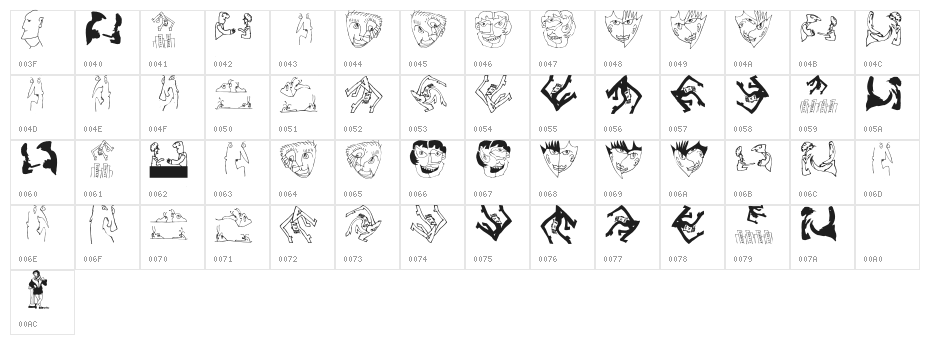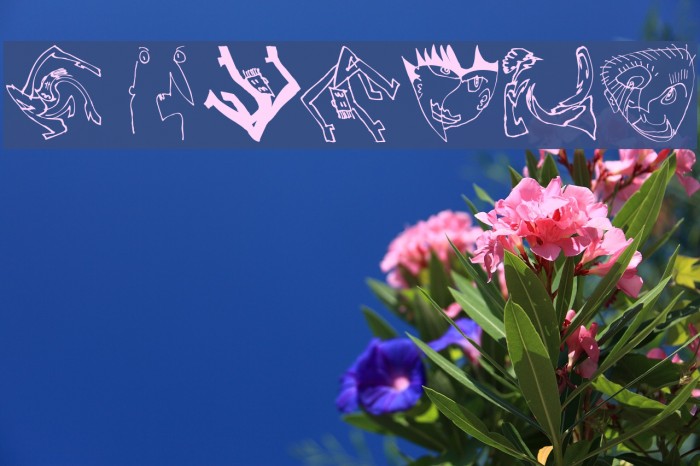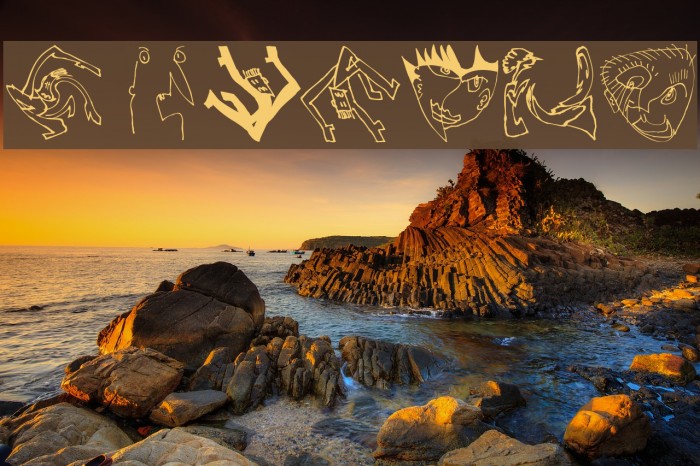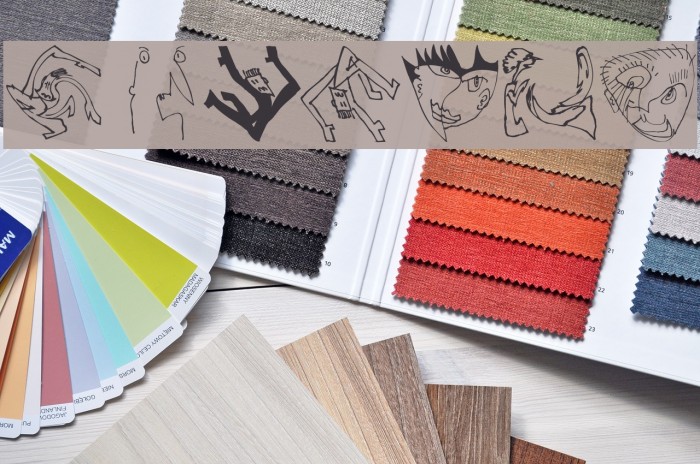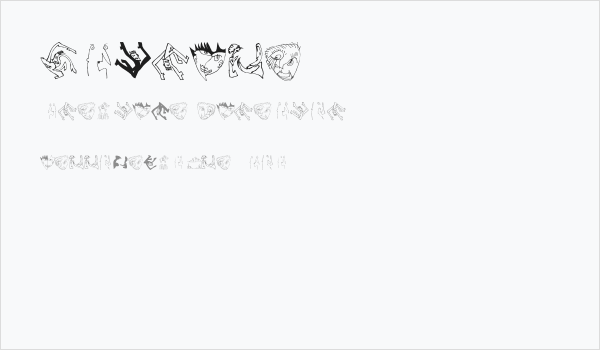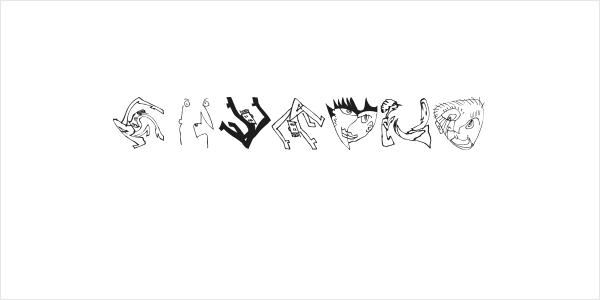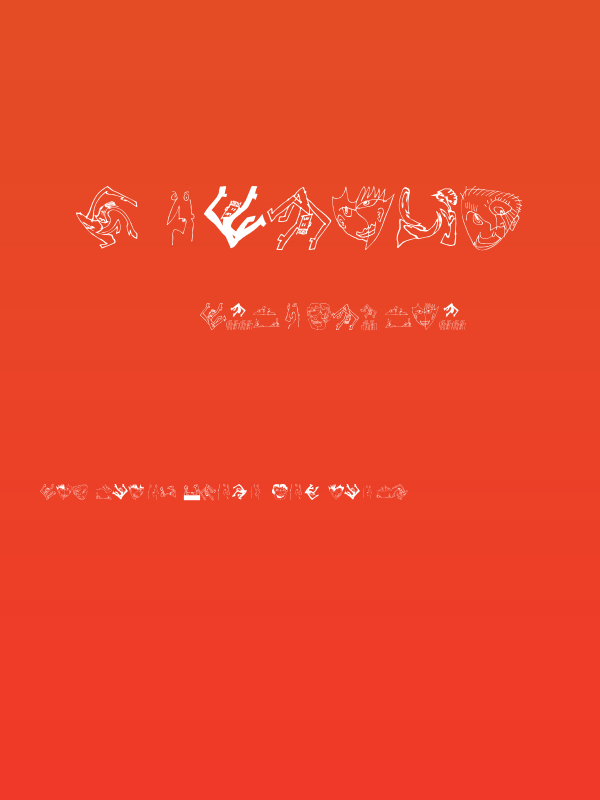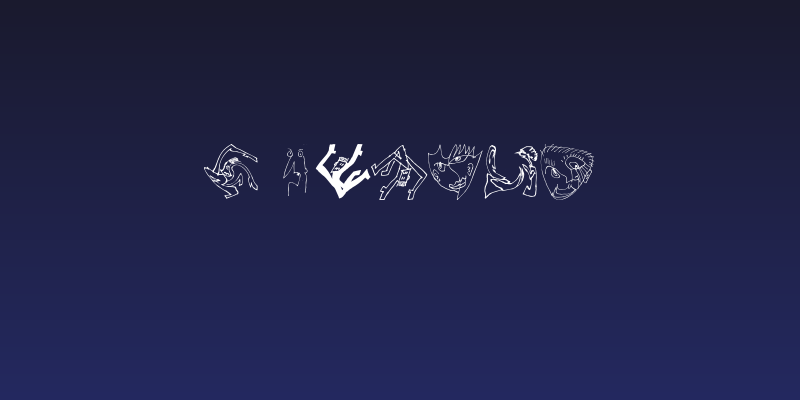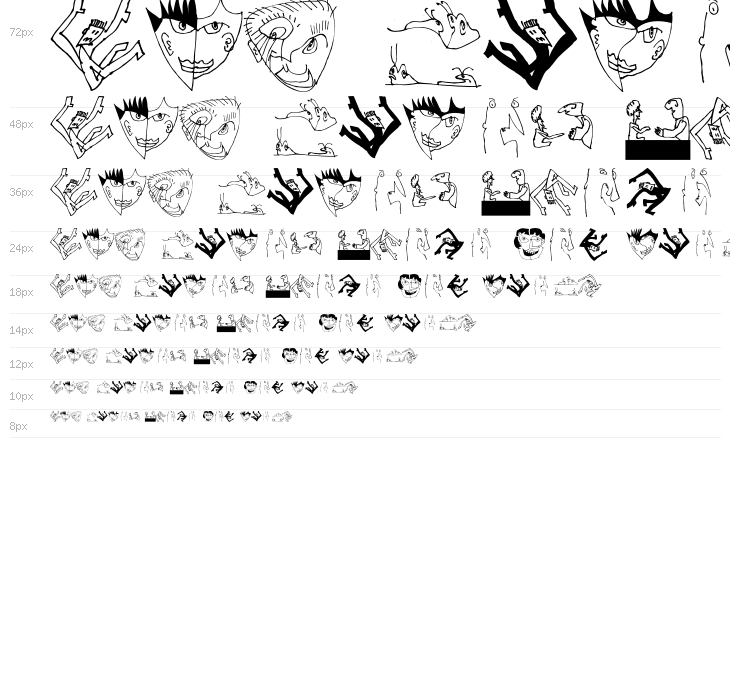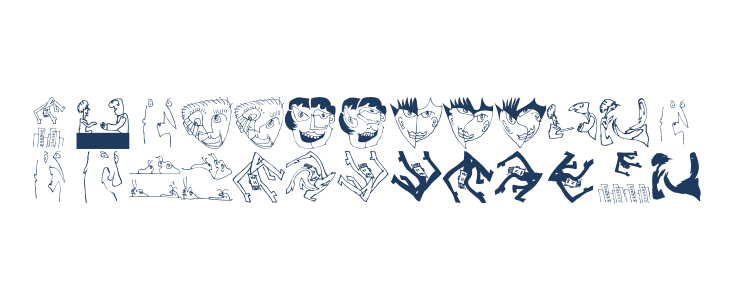
Scurile Font
Scurile Description
This font is a highly creative and artistic display typeface that incorporates abstract human figures and faces into each character. The letters are formed by unique illustrations that give a playful and whimsical feel, making it stand out as a decorative font. Each character is distinct, with varying line thicknesses and intricate details that add depth and personality. The font is not designed for readability in body text but rather for artistic expression in headlines or graphic designs. Its unconventional style makes it suitable for projects that aim to capture attention and convey a sense of creativity and individuality.
| Overall Style | Artistic, Whimsical, Creative |
| Use Case | Headlines, Artistic designs, Posters |
| Proposed Projects | Ideal for creative projects such as posters, album covers, art exhibitions, and unique branding materials. |